It’s happening. Announcements have been made and the plans are set. Adobe is ending all support for PostScript Type 1 fonts in January 2023. This means that any PostScript Type 1 font used within a program or application will not appear in the “in-program font list.” And any file containing a PostScript Type 1 font will trigger a “missing font” error when opened.
The first sign of this was when Adobe ended support for PostScript Type 1 fonts within Photoshop in January 2021. Still, it can feel a little shocking that such a large-scale change is coming to our industry. But this doesn’t have to be a sign of impending creative chaos. With every change comes new opportunities for growth, and we can help you protect your work so you’re prepared when the end of support for PostScript Type 1 fonts arrives.
What Is A PostScript Type 1 Font?
PostScript Type 1 fonts were developed by Adobe in 1984 to use with its PostScript page description language. The original font set contained 13 base fonts, including classics like Courier, Helvetica, and Times New Roman. Think of this chart as a museum exhibit of the early days of PostScript Type 1 fonts:
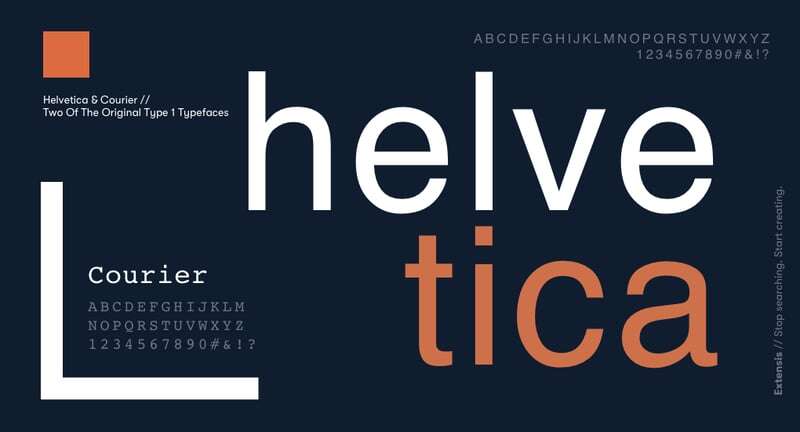
Since the early 2000s, the PostScript Type 1 font format has been eclipsed by OpenType — which has risen to become the industry standard. OpenType fonts offer greater compatibility across platforms (Mac and Windows) and have added other features that support different languages, expanded character sets, and more.
Even though the format has been rendered all but obsolete, PostScript Type 1 fonts are still in use today. When reviewing our customer font database of over 7 million fonts, we discovered that 25% are PostScript Type 1 fonts.
What Does The End Of Support Of PostScript Type 1 Fonts Mean For Designers?
No matter what your font collection looks like, Adobe’s decision to end support for PostScript Type 1 fonts will impact your creative workflow. And it doesn’t matter if you’re a freelance graphic designer or if you lead a global agency. If you work with fonts, this shift will transform the creative landscape for years to come. Here are a few of the biggest considerations:
Financial Impact Of The Demise Of PostScript Type 1 Fonts
Updating Documents That Contain PostScript Type 1 Fonts
The need to re-publish assets that contain PostScript Type 1 fonts is going to cause an issue. For example, book publishers often reprint new book editions with only minor revisions and updates to the existing content. But this won’t work starting in January 2023. A complete overhaul of every document that contains PostScript Type 1 fonts will be a lengthy process, as every replacement font will alter the formatting throughout the file. Learn more about managing your files during the demise of PostScript Type 1 Fonts.
The End Of PostScript Type 1 Fonts Could Lead To Productivity Issues
Creative teams could benefit from auditing their fonts, which would help minimize complications when this transition happens in January 2023. Understanding which servers, systems, and processes are affected by PostScript Type 1 fonts is a crucial step to avoid disruptions to your team’s workflow.
How Can You Prepare For The End Of PostScript Type 1 Fonts?
Okay, that was the bad. Now comes the good — action. With a little flexibility and planning, you can mitigate the impacts of the demise of PostScript Type 1 fonts. We recently held a webinar that outlines what steps you can take, including:
- Start By Taking Inventory. Identify all your PostScript Type 1 fonts and group them in a separate folder. You can perform a smart search for PostScript Type 1 fonts in Extensis font management tools, and collect all of them in seconds. This way, they’re organized, easily accessible, and isolated from your current library of fonts. Start finding, collecting, organizing, and replacing Type 1 fonts with a free 15-day trial of Connect Fonts.
- Kick PostScript Type 1 Fonts To The Curb. Get into the habit of consciously choosing alternate font types such as TrueType or OpenType fonts for your new and ongoing projects, and start removing PostScript Type 1 fonts from your workflow daily. This will make you much more prepared when Adobe ends support for all PostScript Type 1 fonts in January 2023.
- Turn Away From Font Conversion Tools. While you might have thought about converting your PostScript Type 1 fonts to either the OpenType or TrueType format, be careful. This is likely prohibited by the font foundry's End User License Agreement. Review your font EULAs or contact the font foundry directly for more information.
Planning For A World After PostScript Type 1 Fonts